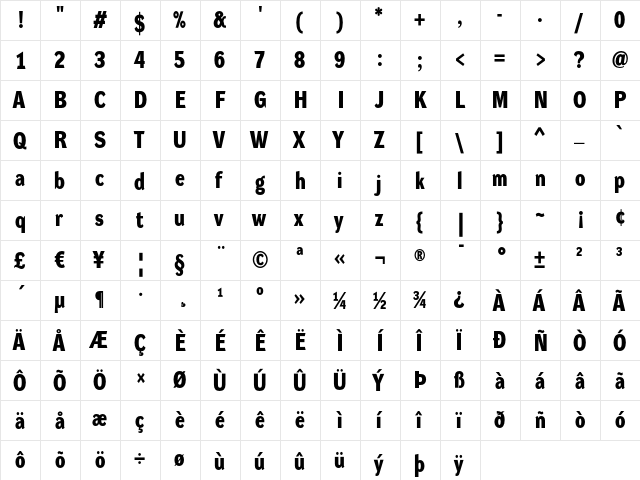
DynaGrotesk DM Bold
Design Context for DynaGrotesk DM Typeface
DynaGrotesk DM has the quiet confidence of well-executed sans-serif typography: versatile, unobtrusive, and dependable at any size. The heavy weight commands attention and anchors typographic hierarchies.
Well-suited to navigation labels, product packaging, and anywhere legibility at scale is essential.
Font Pairing: Use DynaGrotesk DM for headlines alongside a lighter-weight sans or serif for body copy to establish clear visual hierarchy.
Pro Tip: Use DynaGrotesk DM for UI labels, navigation, and short-form body copy where clean legibility is the priority.